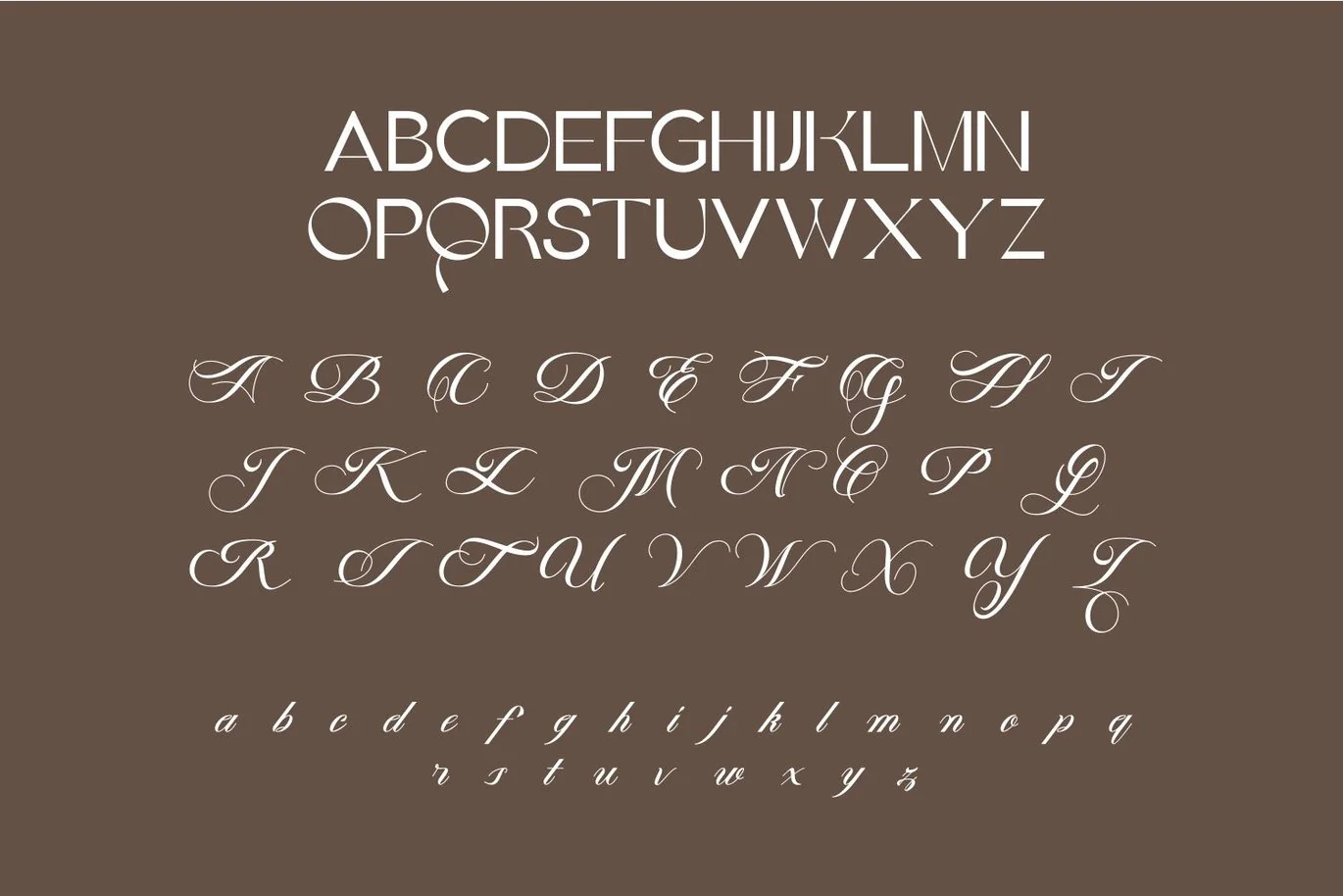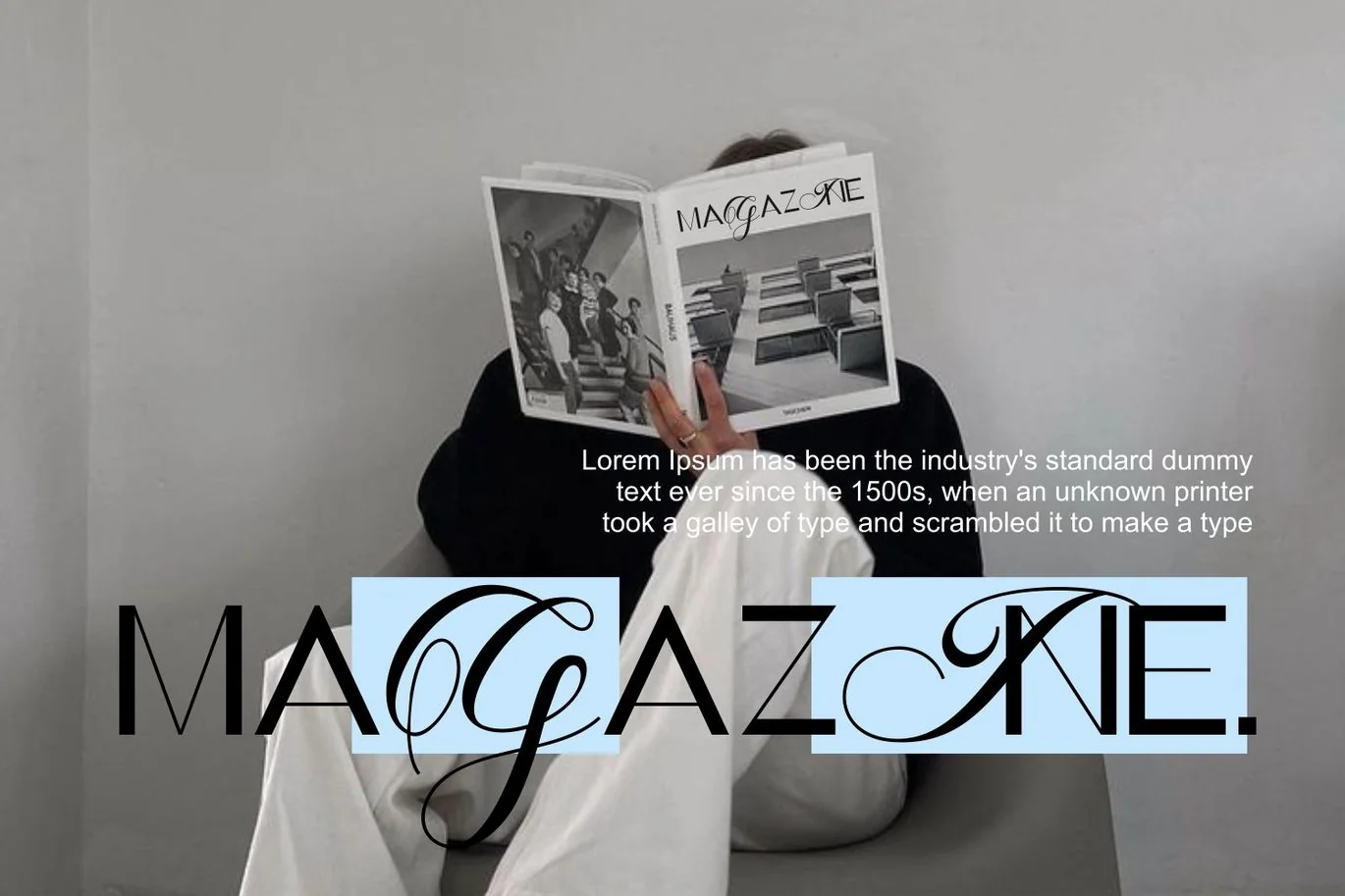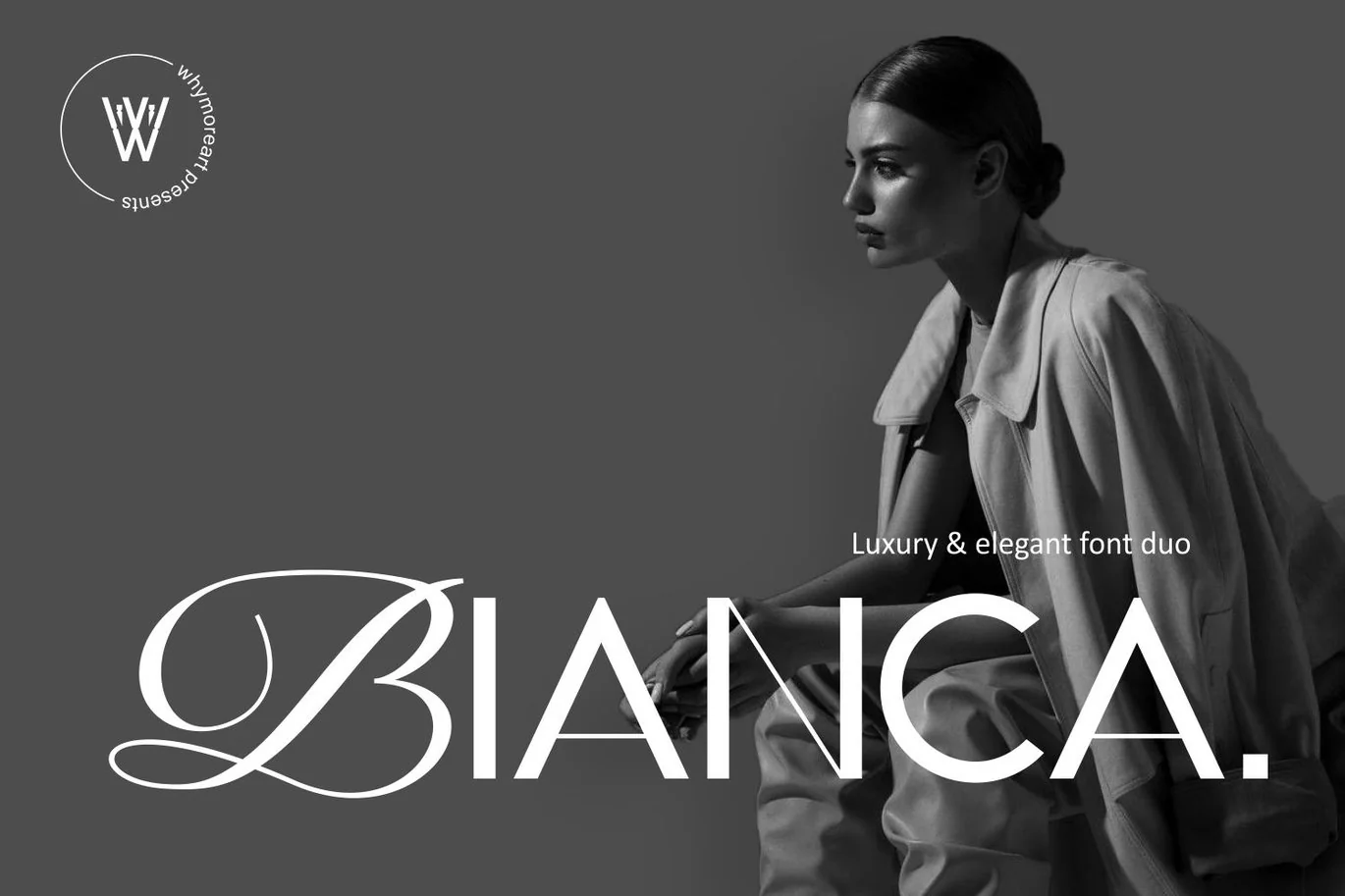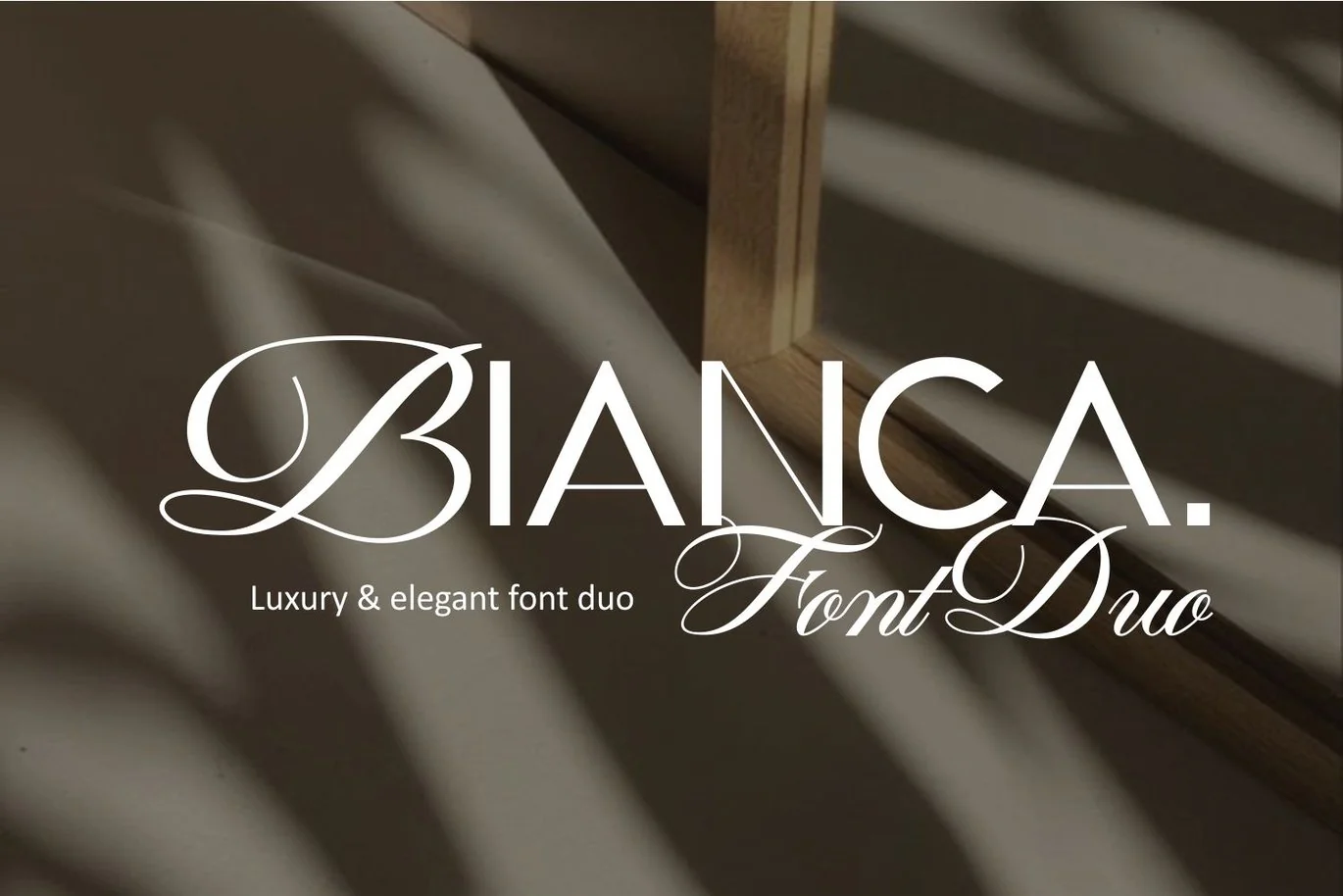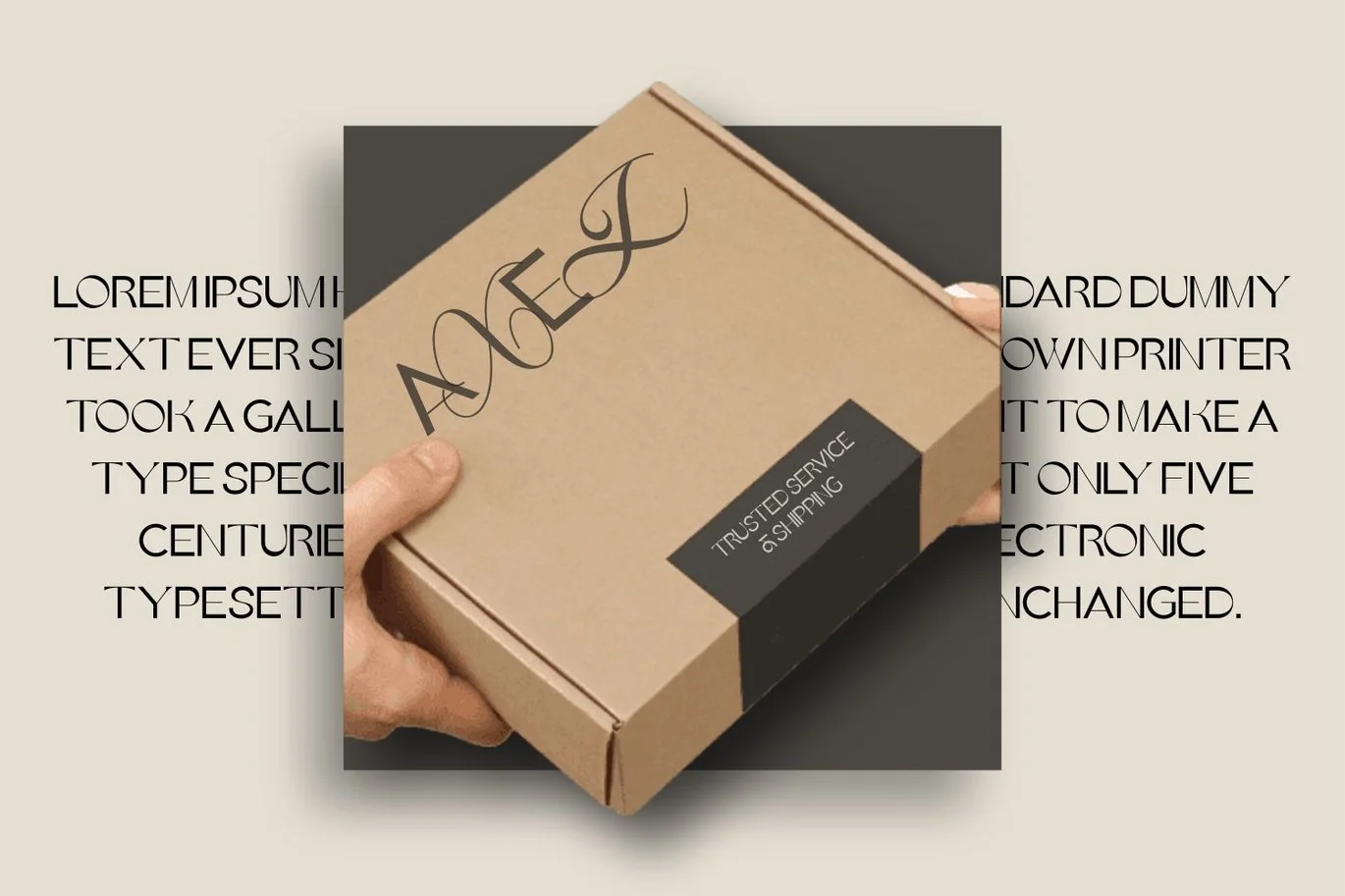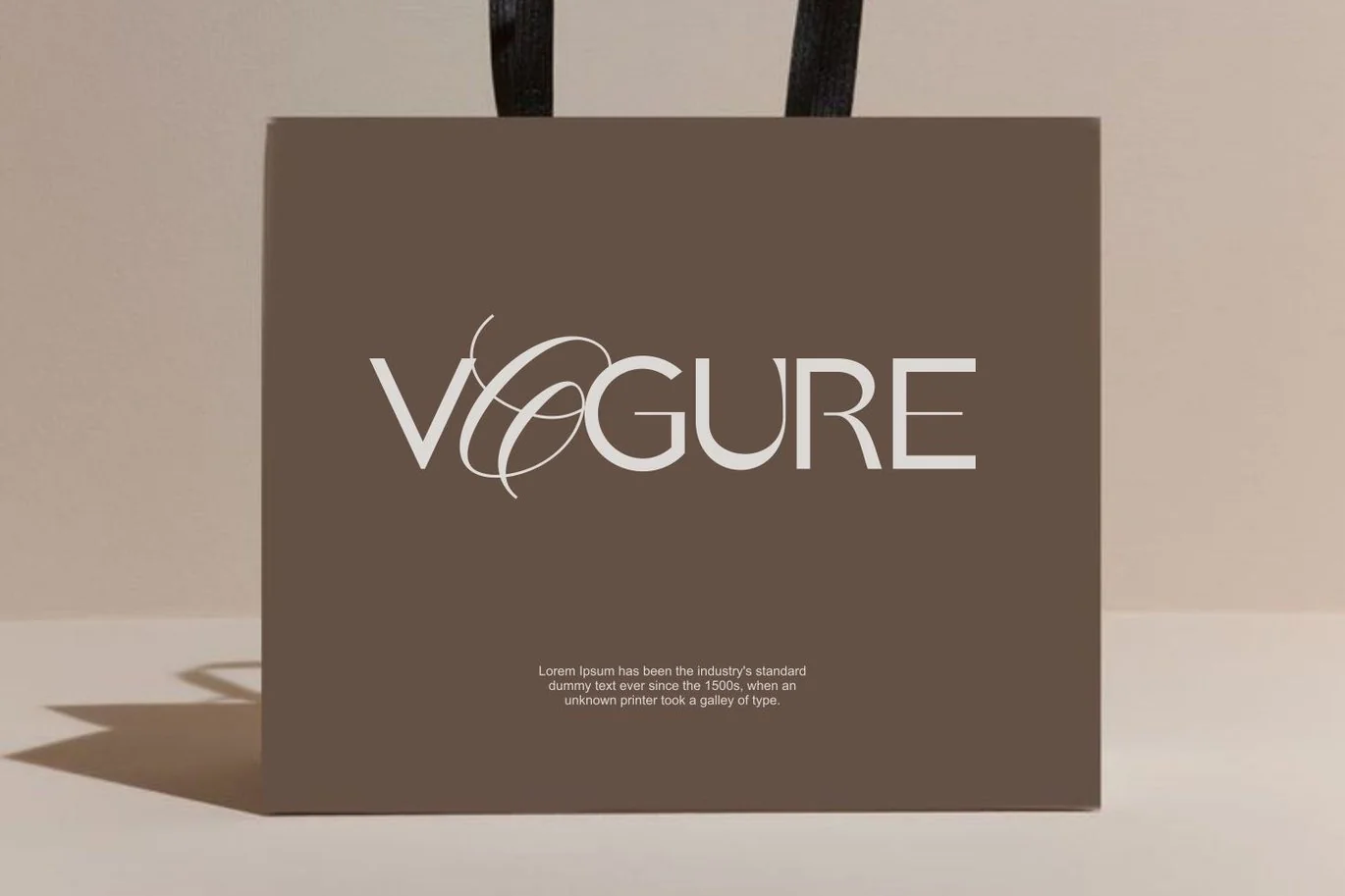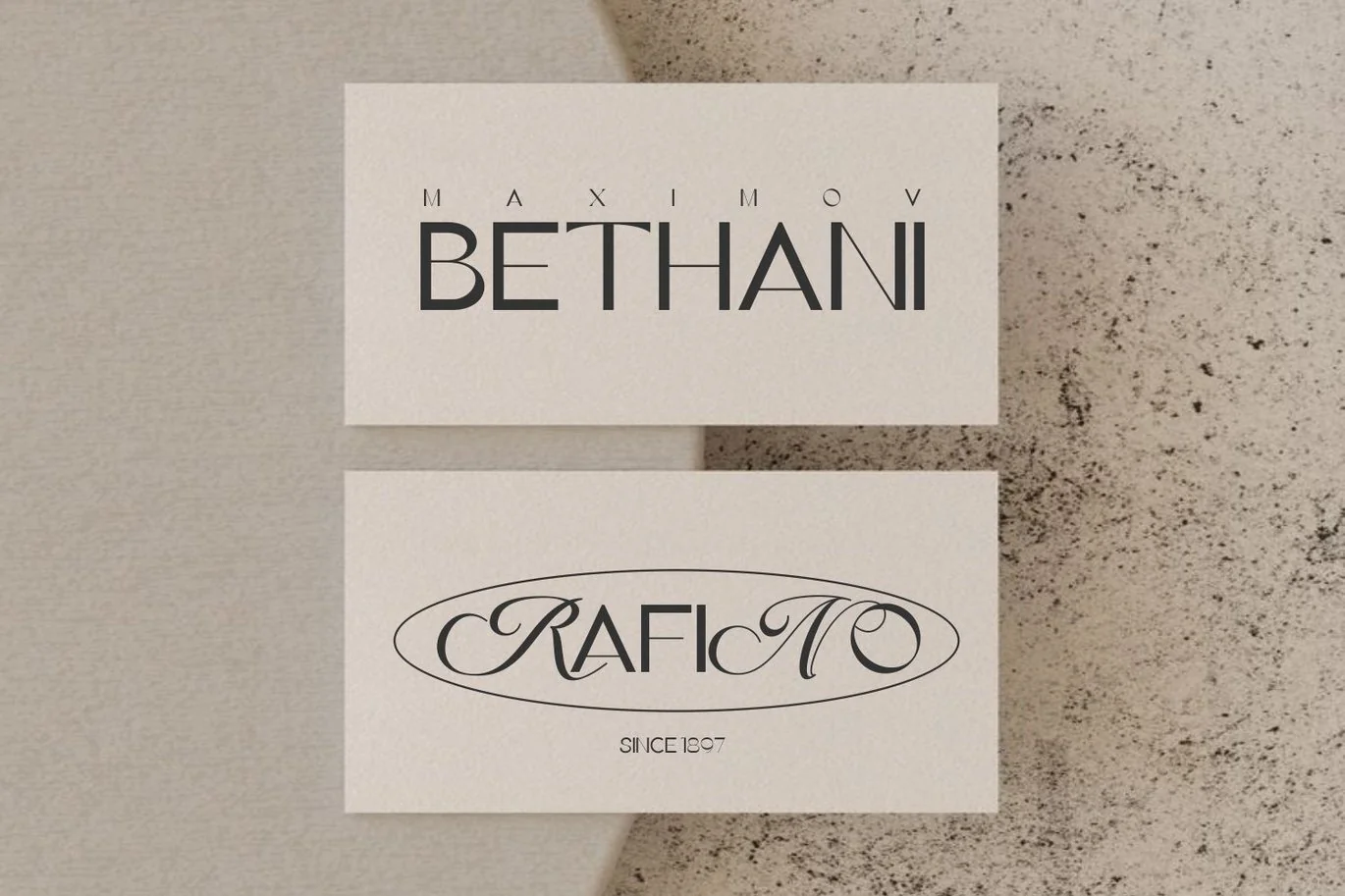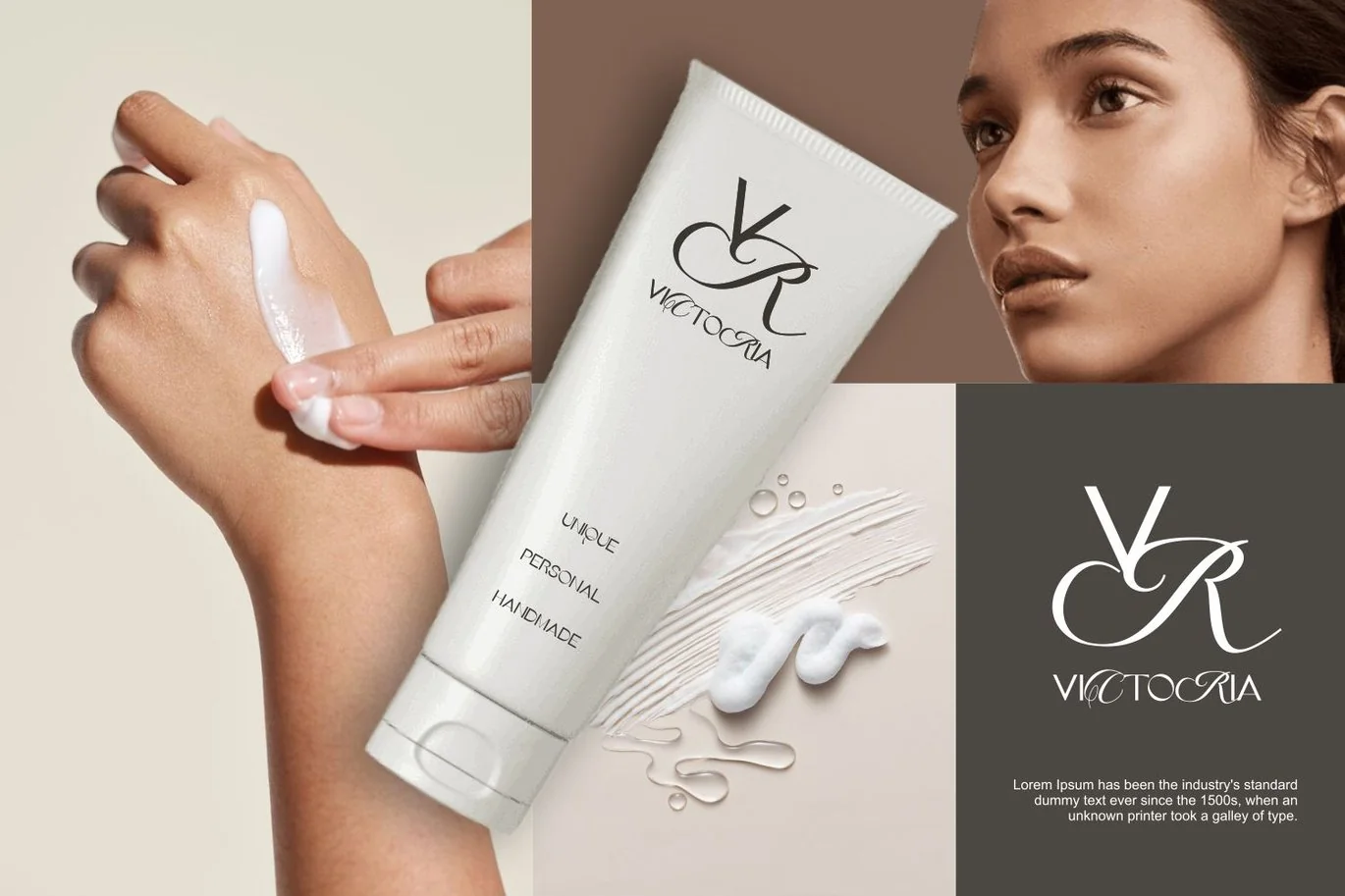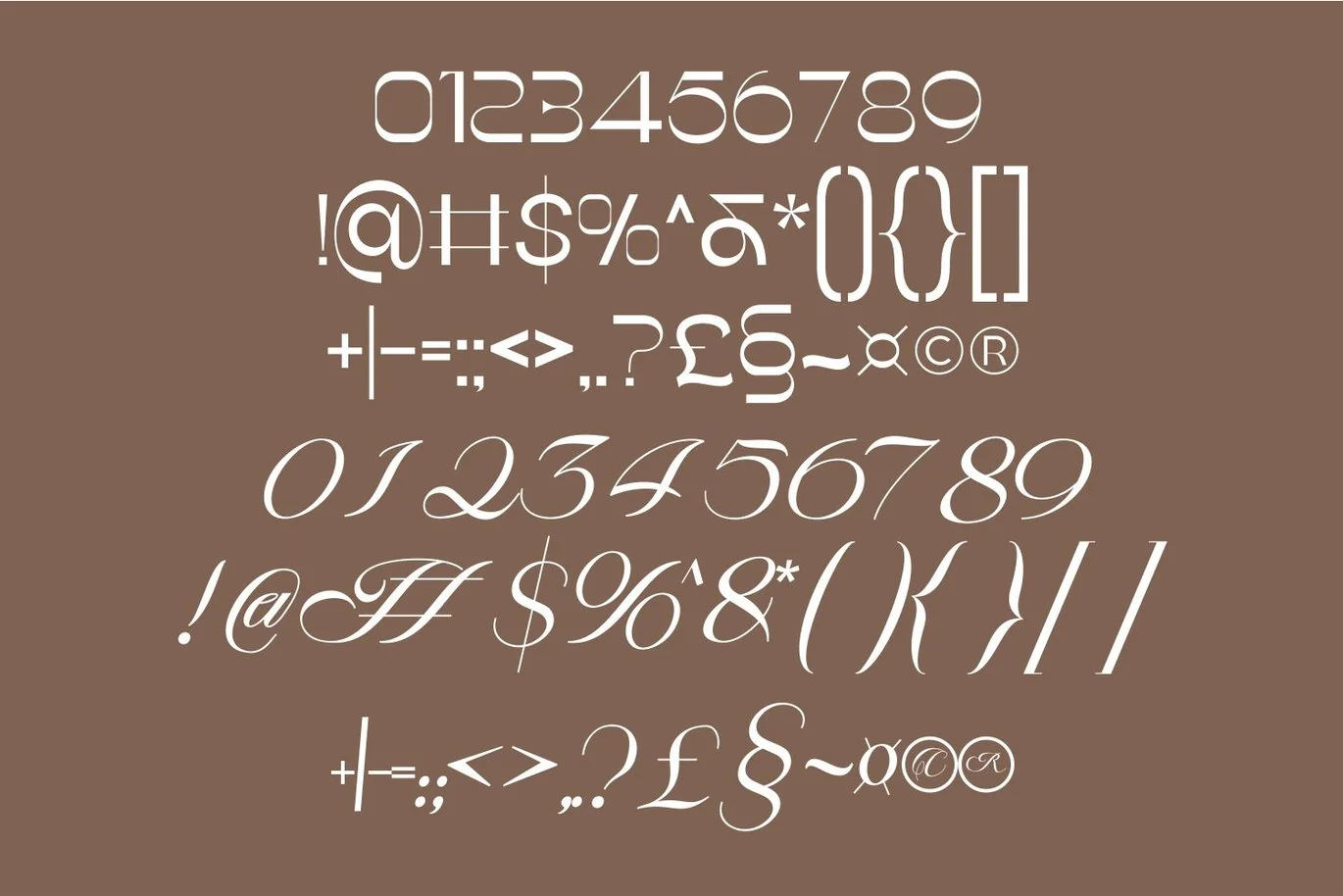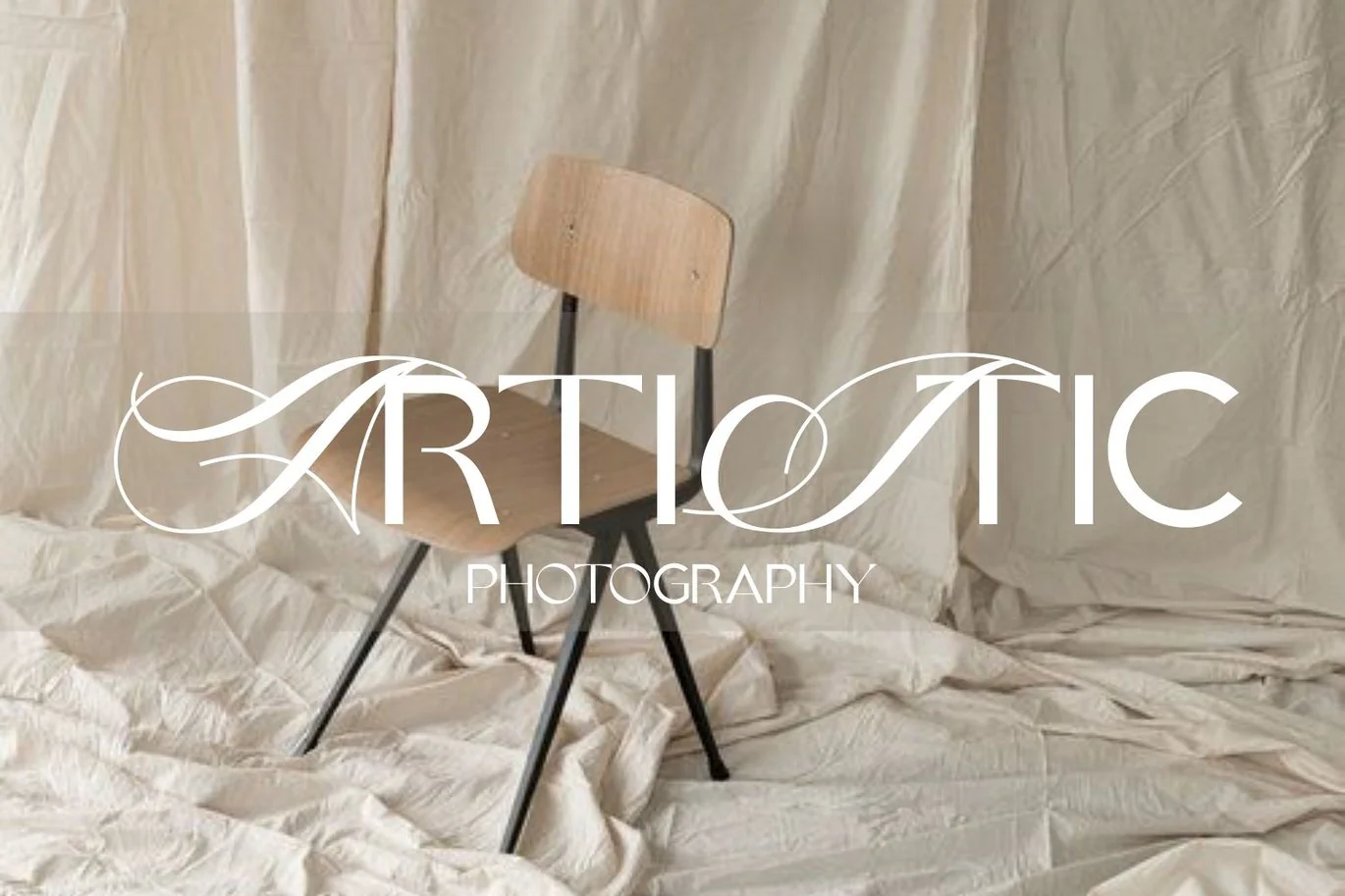
Bianca | Sans Script Font Duo
Elevate Your Designs with Bianca: The Elegant Cursive and Minimalist Font Duo
Bianca takes your typography to the next level, combining elegance with a cursive and minimalist font duo. Its attractive synergy and sophisticated curves make it timeless, suitable for the past, present, and future.
→ Timeless Elegance: Minimalist yet luxurious, Bianca is perfect for branding, design templates, invitations, calendars, posters, headlines, brochures, and promotional tools.
→ Versatile Use: Ideal for headlines, logos, and lettering, ensuring clear communication while catching the eye.
→ Modern Sophistication: Created to meet the visual needs of the modern age, embodying both futurism and class.
Bianca’s unique blend of serif and sans fonts offers a futuristic style, perfect for designers seeking a typeface that stands out. Choose Bianca for a sophisticated, timeless, and visually captivating design experience.